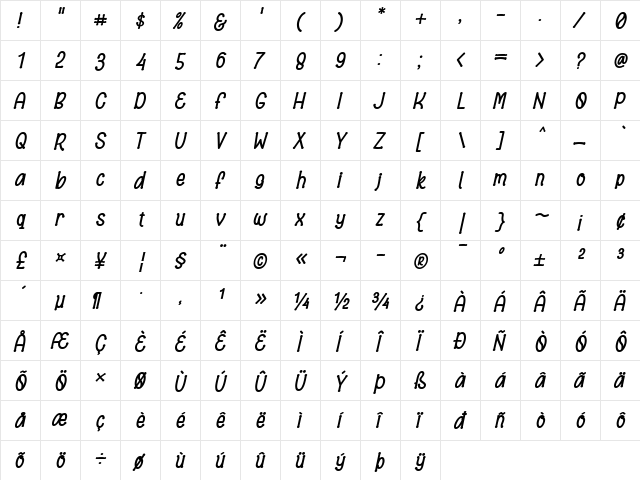
Bronice Italic
| Foundry | 7NTypes |
| Designer | Adif Dzaky; Situjuh Nazara |
Design Context for Bronice Typeface
Bronice is a composed and adaptable typeface that performs quietly and consistently across a wide range of design contexts. Its italic angle brings a sense of urgency and motion to the letterforms.
Pro Tip: Use Bronice for emphasis, pull quotes, and subheadings where its slanted energy can add rhythm to the layout.